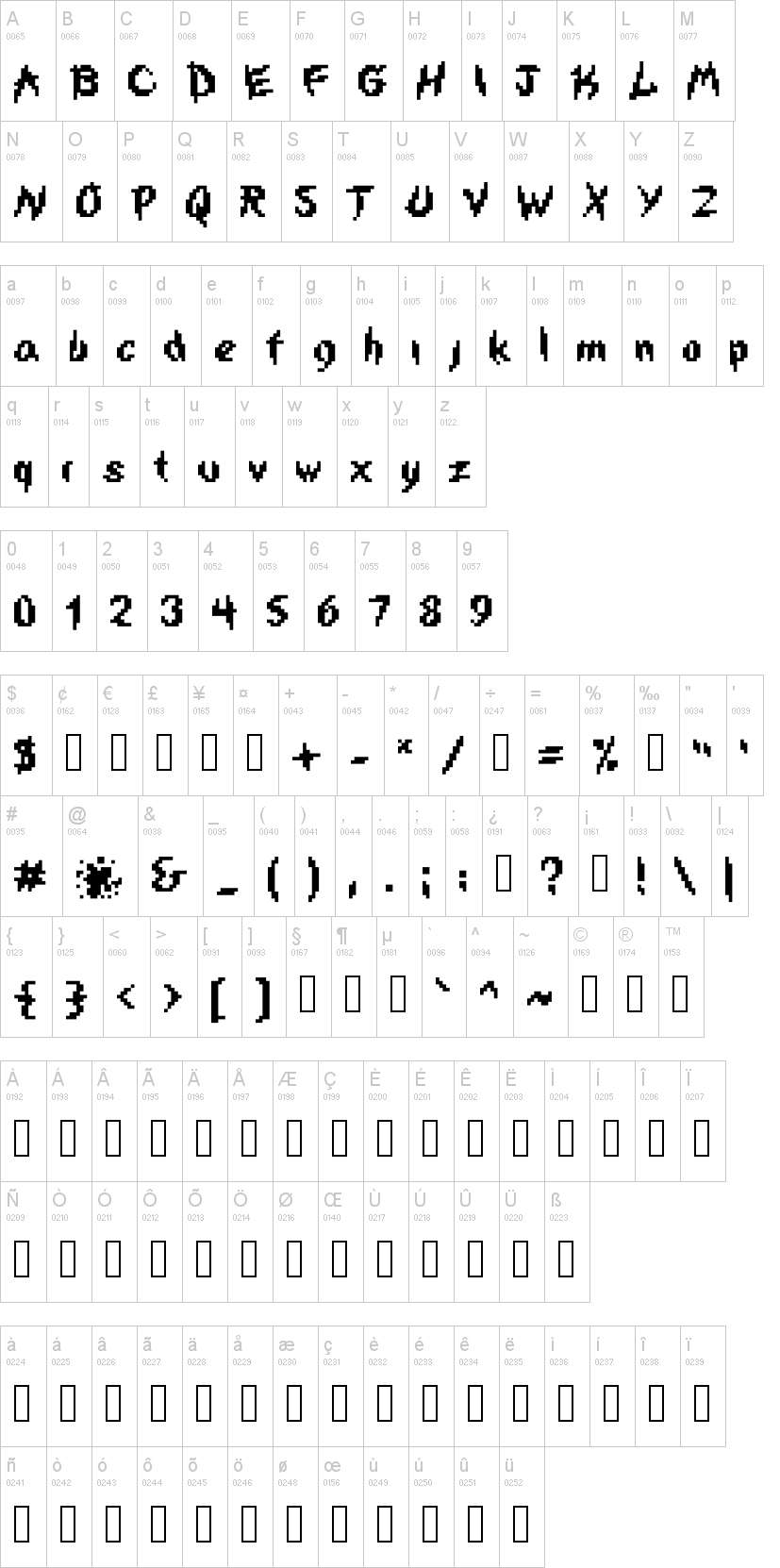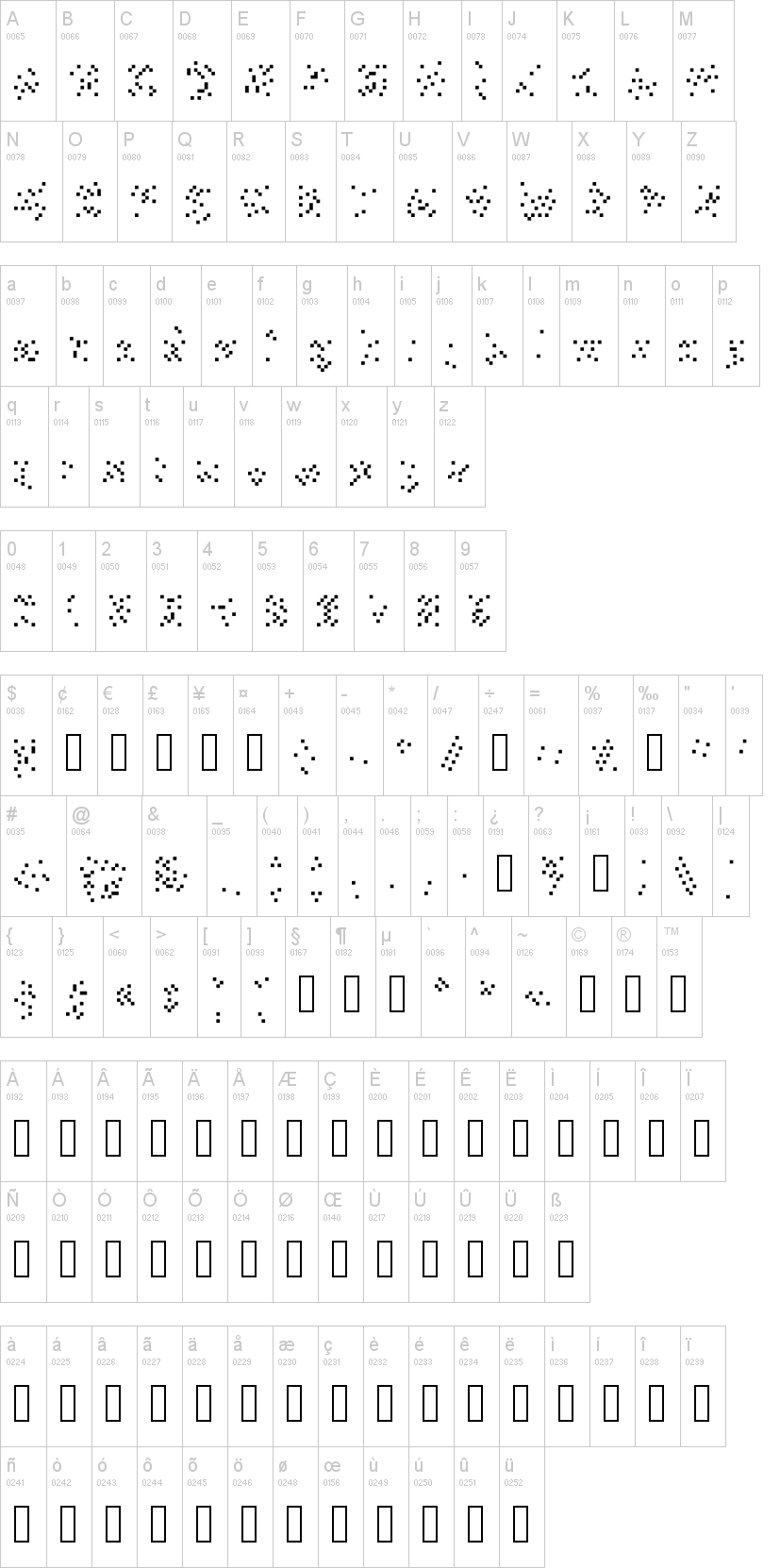
IsWastedAlias.ttfNote of the authorA font specifically made for use in Adventure Game Studios. Best viewed at 10 pixel size. Alias font is to be layered over the base font.